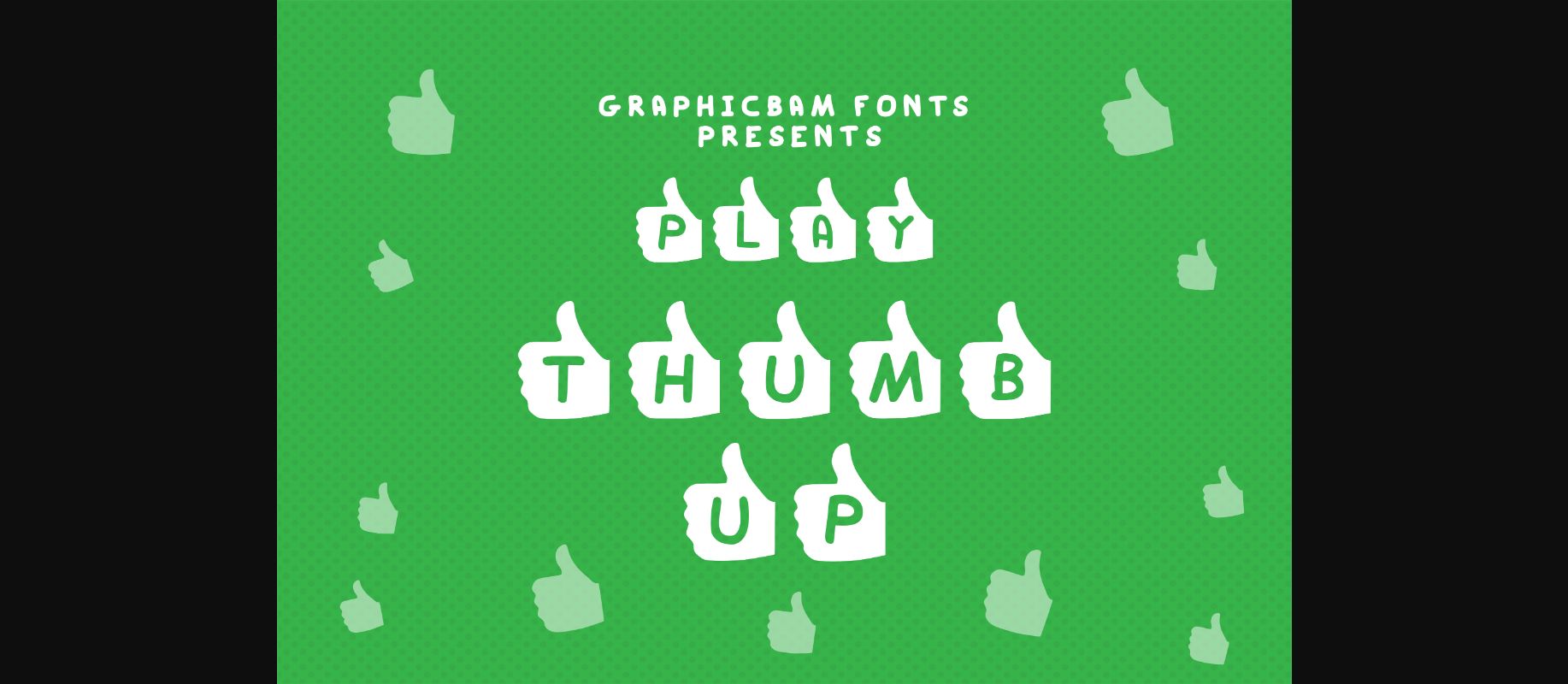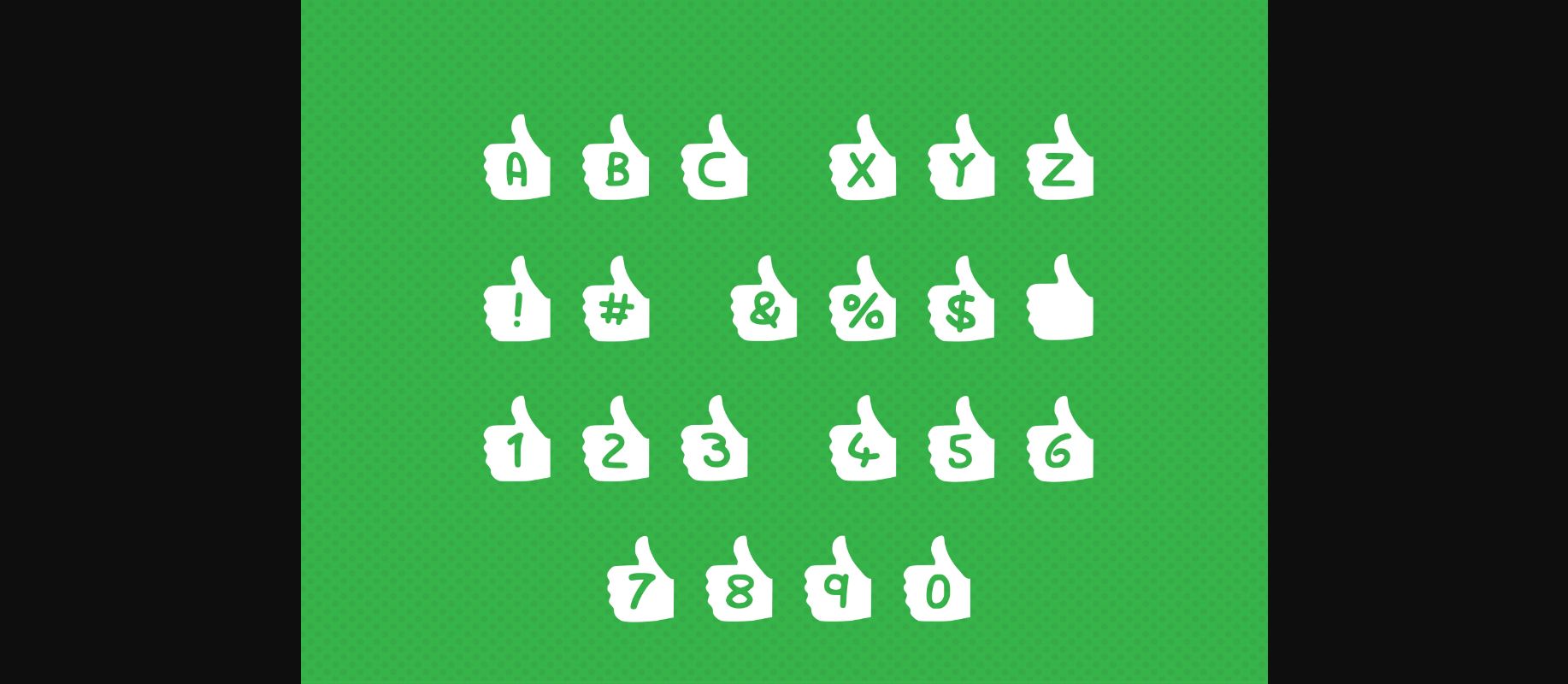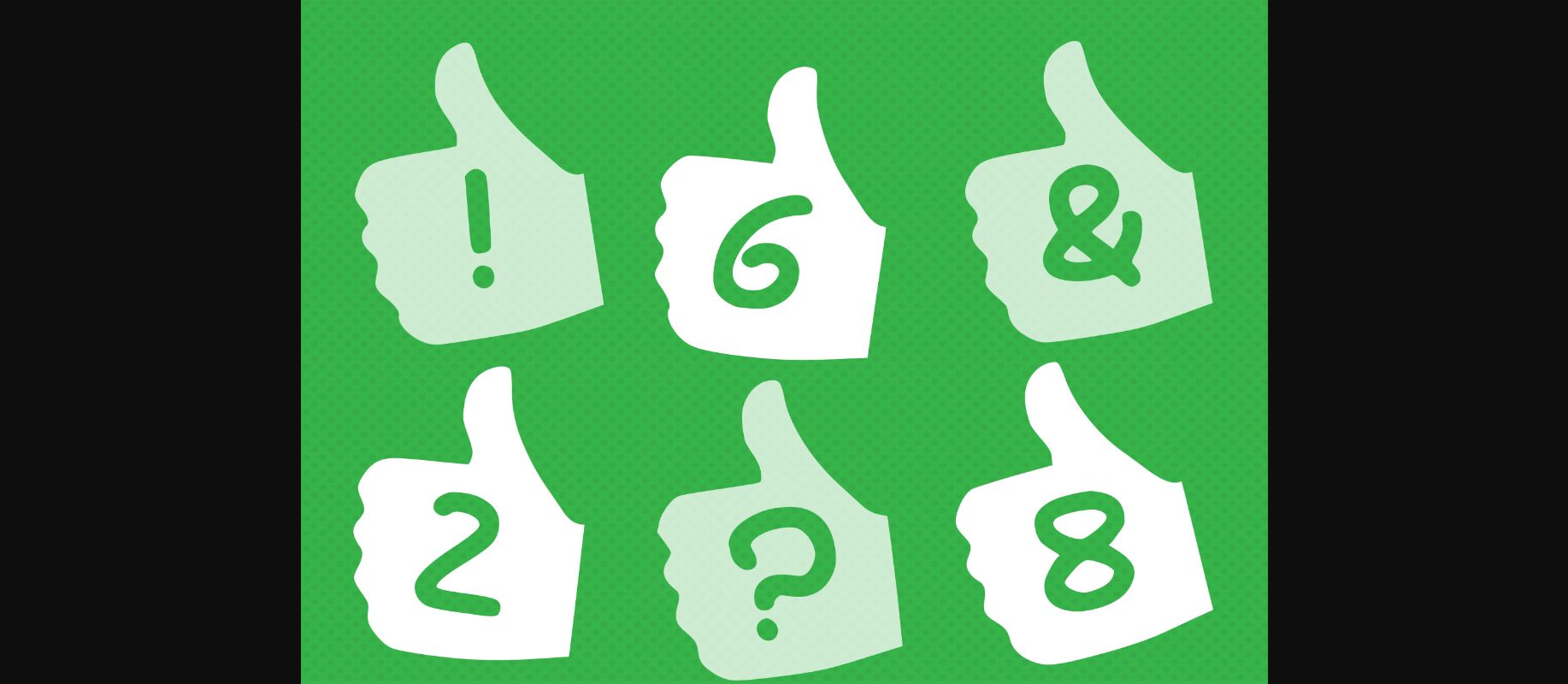
Play Thumb Up Font
About Play Thumb Up Font
Play Thumb Up is an entertaining decorative font suitable for modern and informal creative projects. It looks great on social media posts, marketing materials, banners, advertisements, or more.